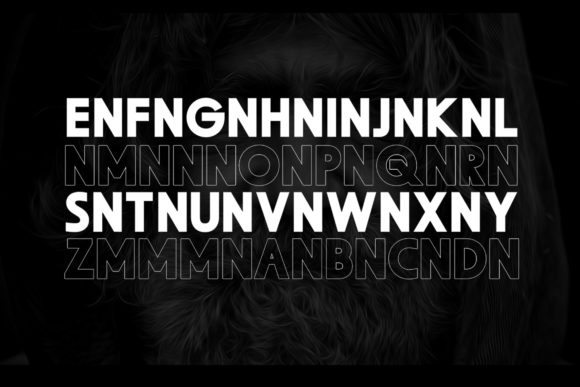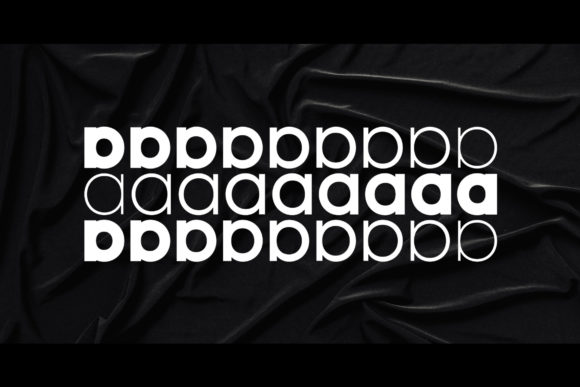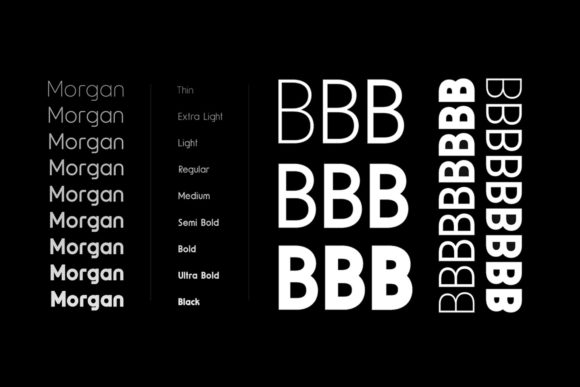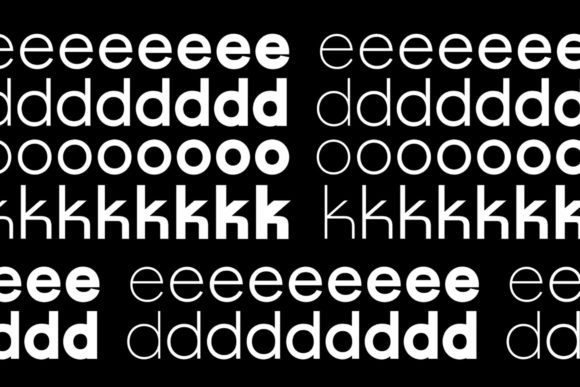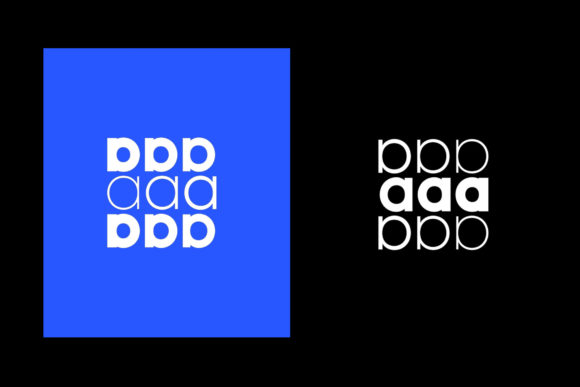
Introduction to Morgan Font
Morgan is a modern and elegant typeface.
Key Features of Morgan Font
Why Choose Morgan Font?
Morgan Font offers exceptional quality and versatility, making it a valuable addition to your design toolkit. Whether you’re creating for personal projects or commercial use, Morgan Font delivers professional results.